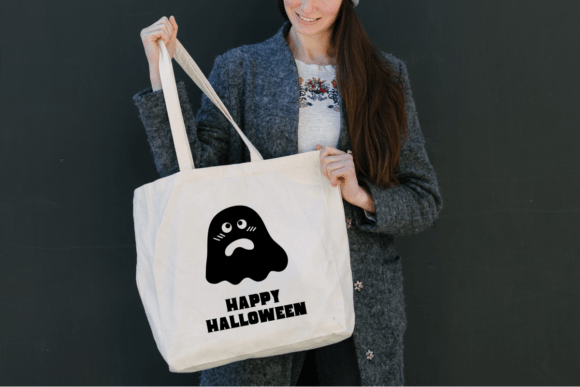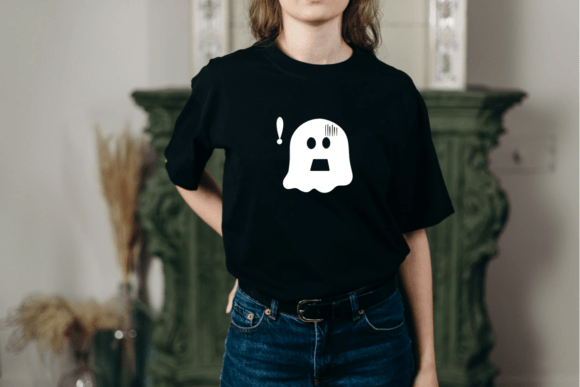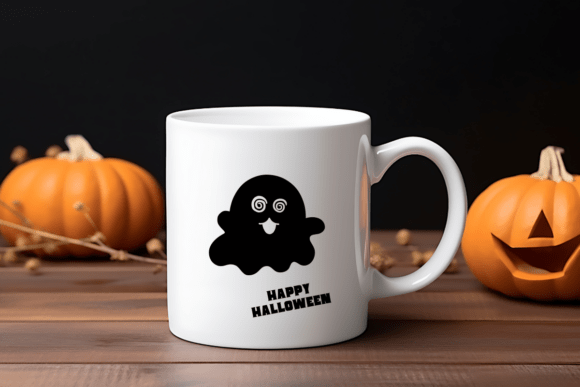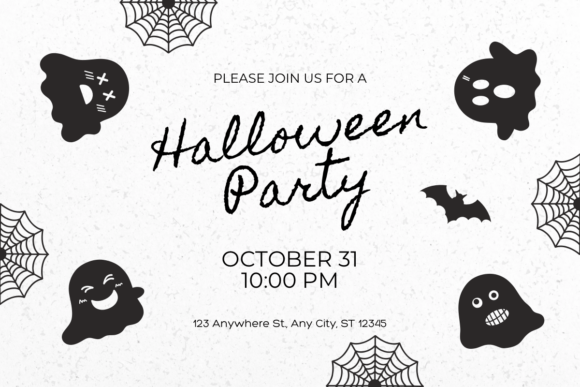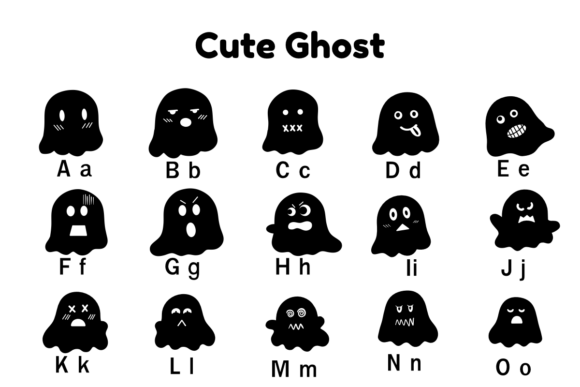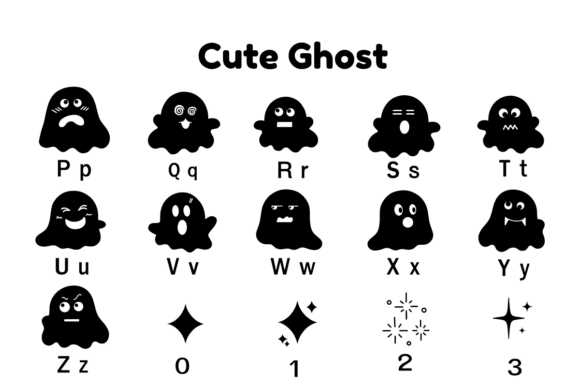
Cute Ghost Font: Add a Touch of Spooky Whimsy to Your Designs
Are you looking for a unique and playful font to add a touch of Halloween charm to your designs? Look no further than the Cute Ghost font, a decorative dingbat typeface that is sure to delight. This adorable font features a range of ghost characters with expressive faces, alongside Halloween-themed icons like bats, pumpkins, spider webs, and witch hats. With its clean, bold strokes and smooth silhouette, the Cute Ghost font is perfect for a variety of creative projects, from seasonal branding to party invitations and social media graphics.
The Unique Design of Cute Ghost Font
The Cute Ghost font is designed to be both fun and versatile. Its unique blend of clean, bold strokes and smooth silhouette makes it highly readable, even at small sizes. The font features a range of ghost characters, each with its own expressive face, adding a touch of personality to any design. Alongside the ghost characters, the font also includes a range of Halloween-themed icons, such as bats, pumpkins, spider webs, and witch hats. These icons can be used to add a touch of seasonal charm to any design, making it perfect for Halloween-themed projects.
Uses for Cute Ghost Font
The Cute Ghost font is perfect for a variety of creative projects, including:
- Seasonal branding: Add a touch of Halloween charm to your brand with custom logos, packaging, and advertising materials.
- Party invitations: Create spooky-cute invitations for Halloween parties, complete with ghostly characters and seasonal icons.
- Stickers and decals: Use the Cute Ghost font to create custom stickers and decals for Halloween-themed crafts and decorations.
- Social media graphics: Add a touch of Halloween whimsy to your social media graphics, including Facebook posts, Twitter headers, and Instagram stories.
- Craft projects: Use the Cute Ghost font to add a touch of personality to craft projects, such as Halloween-themed cards, gift tags, and scrapbook pages.
Benefits of Using Cute Ghost Font
The Cute Ghost font offers a range of benefits for designers and crafters, including:
- Unique and playful design: The Cute Ghost font is sure to stand out in any design, adding a touch of personality and whimsy.
- High readability: The font’s clean, bold strokes and smooth silhouette make it highly readable, even at small sizes.
- Versatility: The Cute Ghost font can be used for a wide range of creative projects, from seasonal branding to party invitations and social media graphics.
Tips for Using Cute Ghost Font
Here are a few tips for using the Cute Ghost font in your designs:
- Experiment with different sizes and colors: The Cute Ghost font can be used at a range of sizes and colors, so don’t be afraid to experiment and find the perfect look for your design.
- Combine with other fonts: The Cute Ghost font can be combined with other fonts to create a unique and interesting look.
- Use with Halloween-themed graphics: The Cute Ghost font is perfect for use with Halloween-themed graphics, such as pumpkins, bats, and spider webs.
The Cute Ghost font is a unique and playful decorative dingbat typeface that is sure to add a touch of Halloween charm to any design. With its clean, bold strokes and smooth silhouette, this font is perfect for a variety of creative projects, from seasonal branding to party invitations and social media graphics. Whether you’re a designer or crafter, the Cute Ghost font is a great addition to your toolkit.